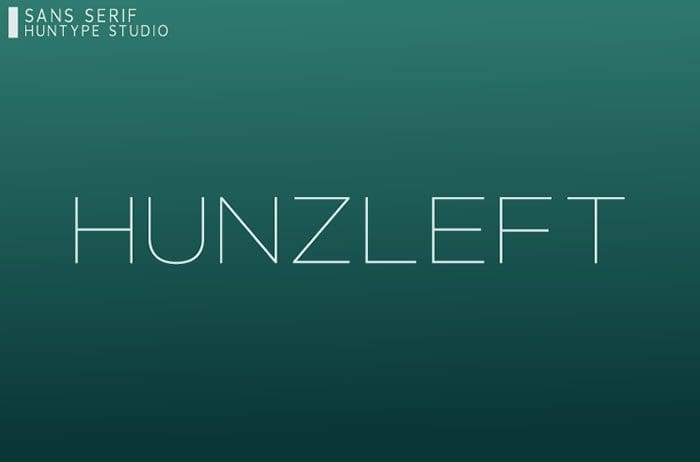
Hunzleft Sans Serif Font
Hunzleft is a clean and simple geometric sans serif font. Crisp and elegant in the lighter weights, this font is the perfect fit for all of your logos, branding, social media, and much more. Thanks to Mas Anis for sharing this font! Take a look at this portfolio for more of his stunning fonts.